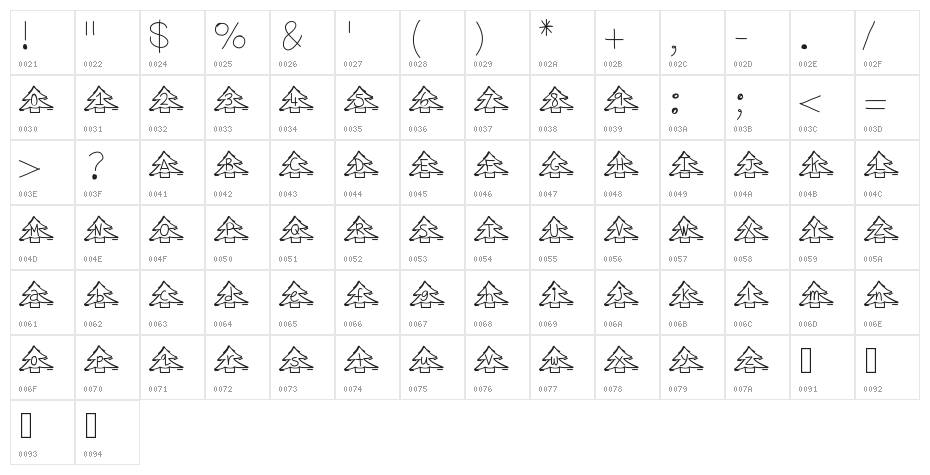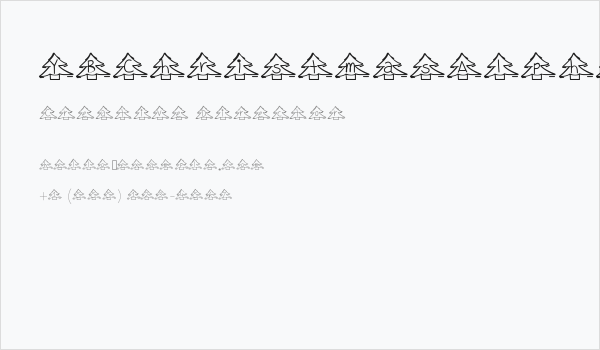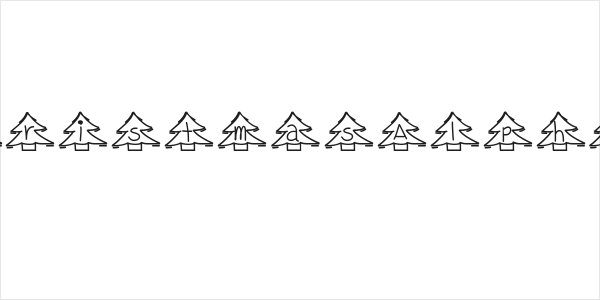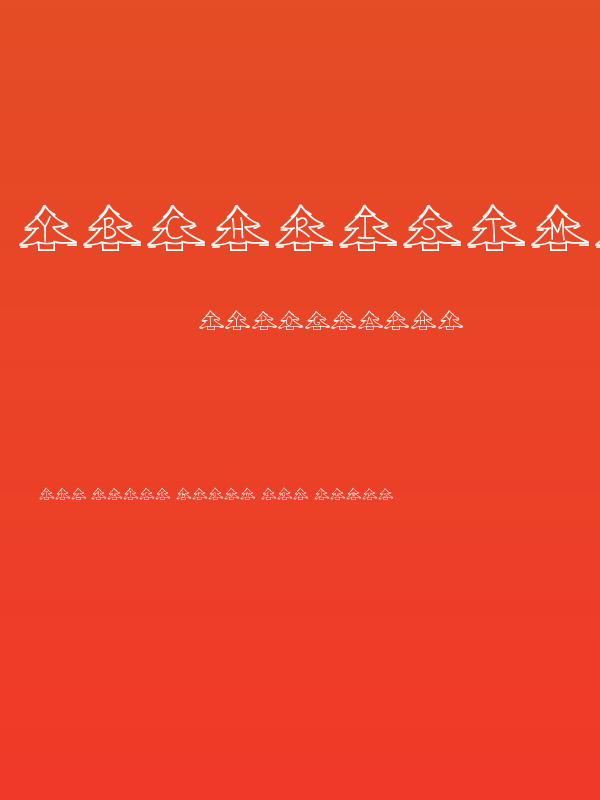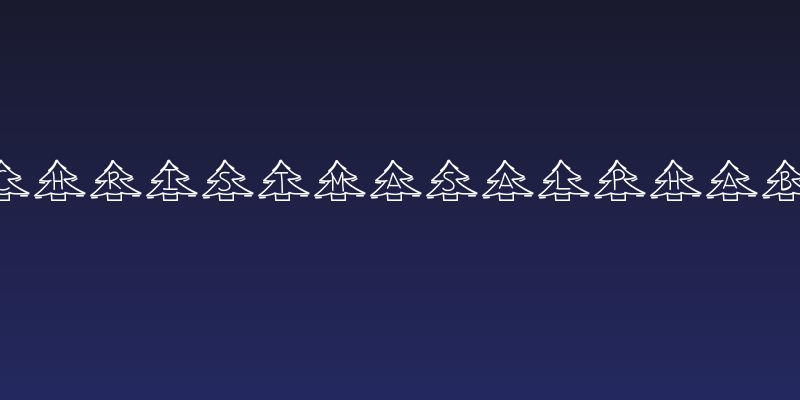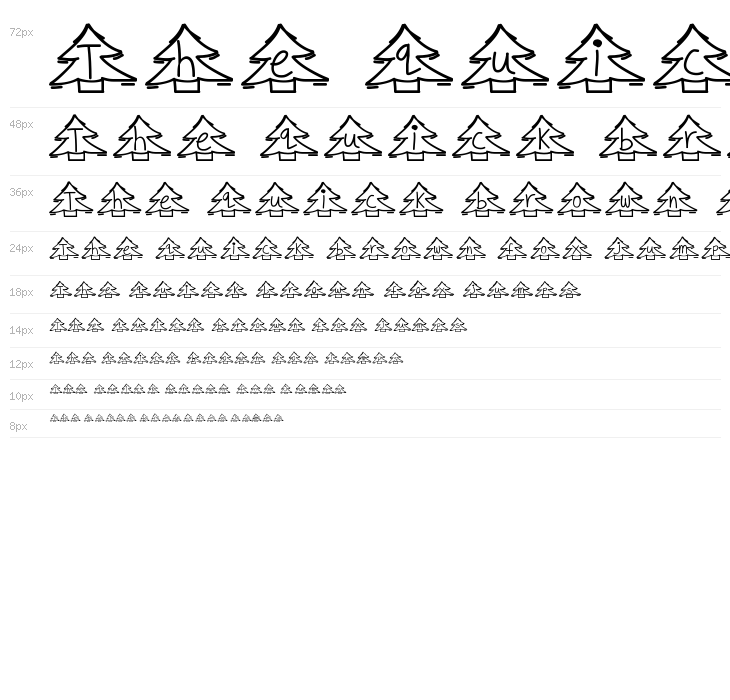
YBChristmasAlphabet Font
YBChristmasAlphabet Description
This decorative font features characters cleverly integrated into Christmas tree shapes, creating a festive and playful appearance. Each letter and number is designed to resemble a stylized tree, making it ideal for holiday-themed projects. The font maintains a consistent outline style, with medium line thickness and uniform character dimensions. The special characters are distinct and maintain the whimsical theme, adding to the overall charm. This font is perfect for capturing the spirit of the holiday season in a unique and eye-catching way.